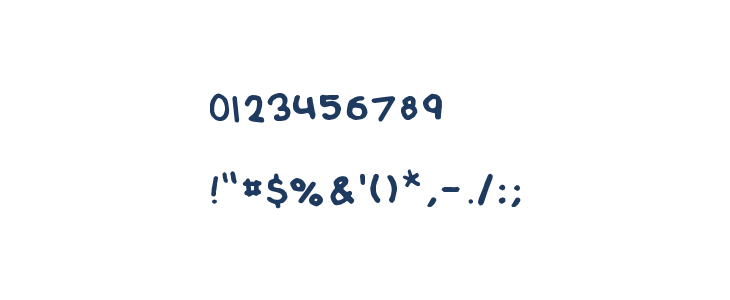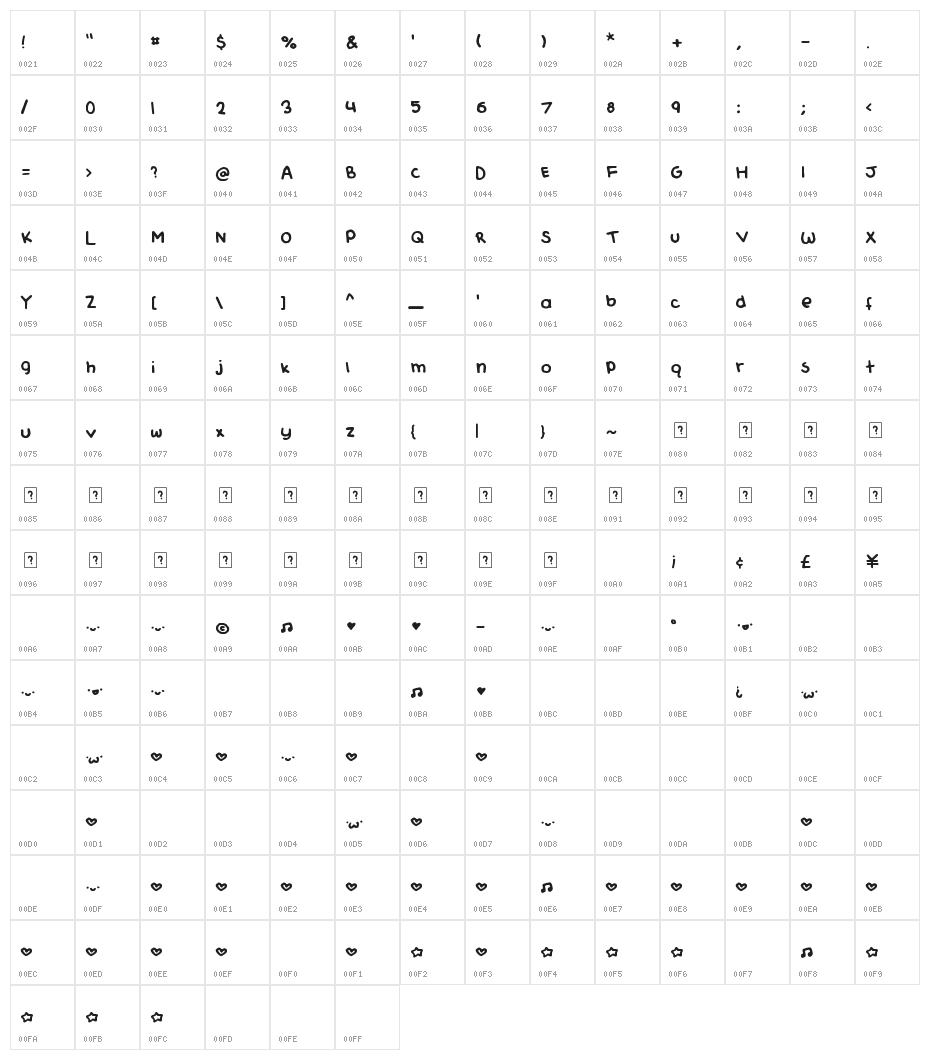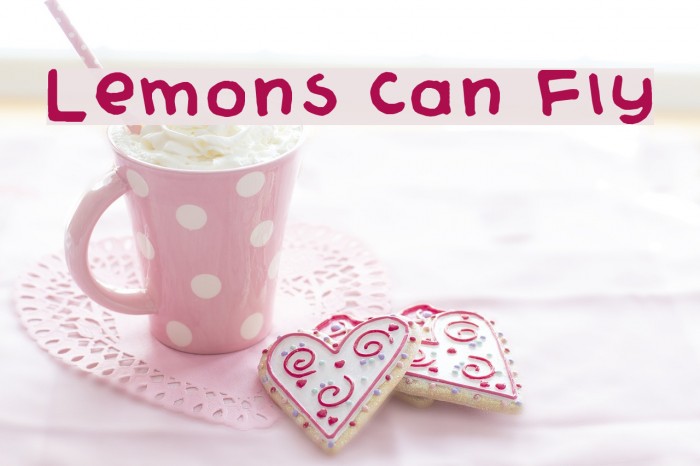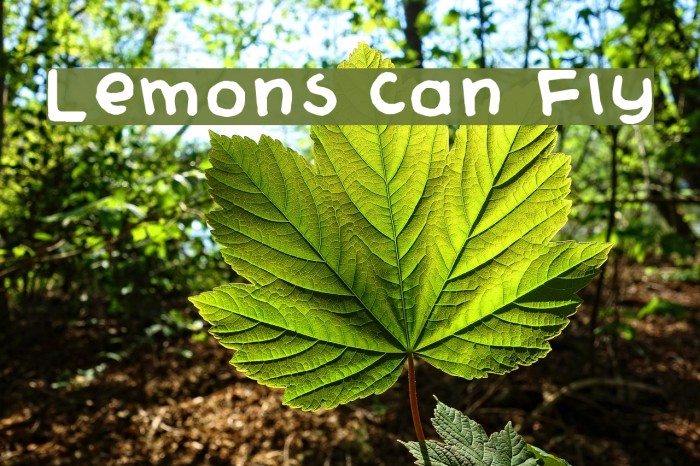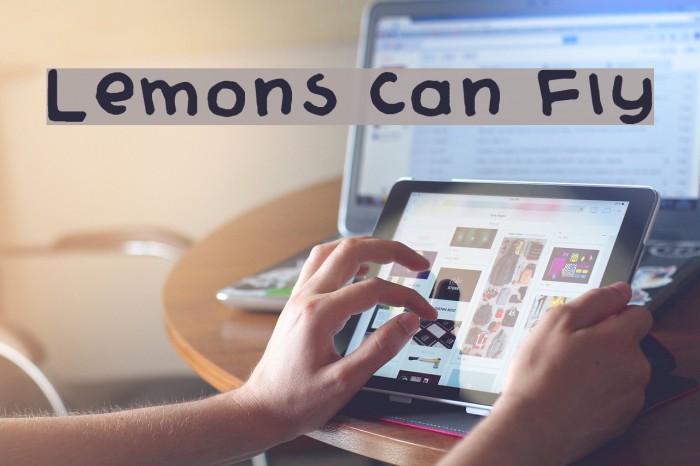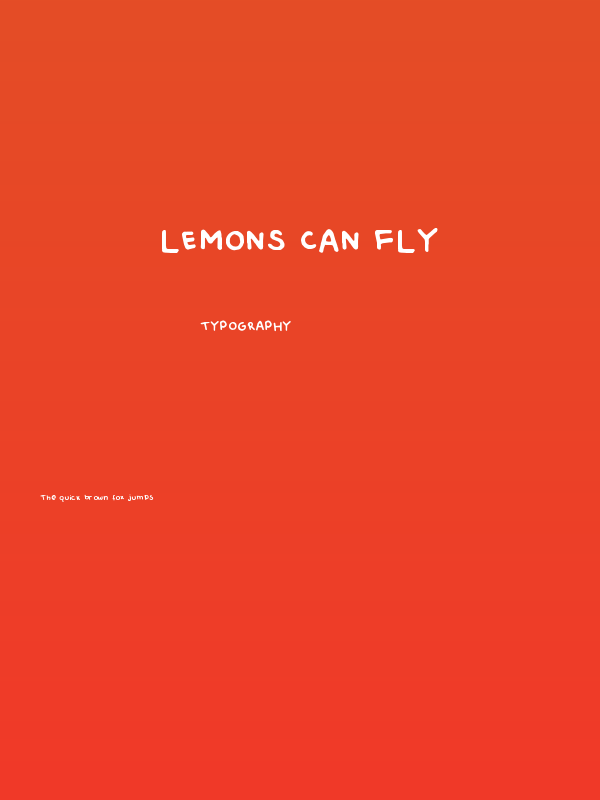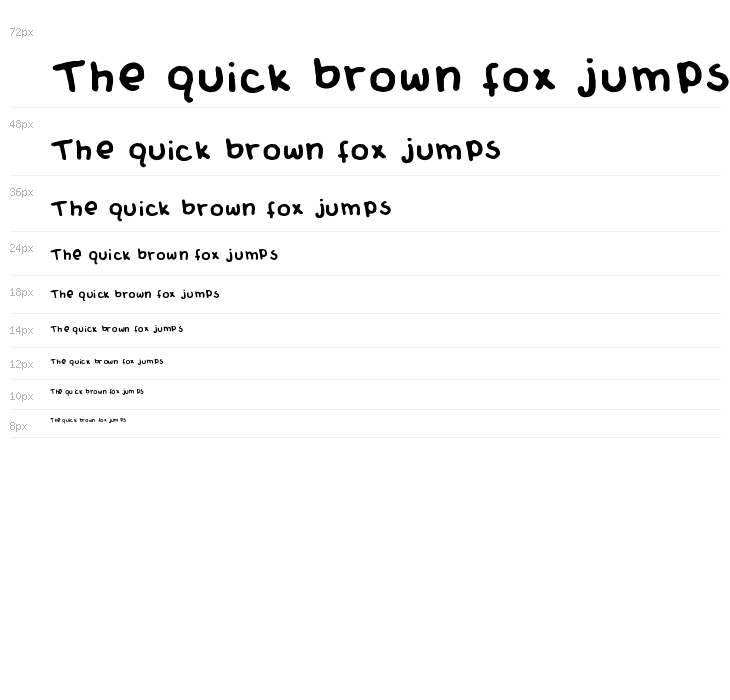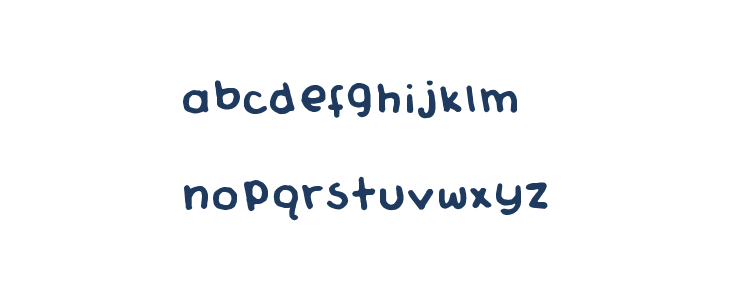
Lemons Can Fly Font
Lemons Can Fly Description
This playful and whimsical font features a hand-drawn aesthetic with rounded, slightly irregular letterforms that convey a sense of fun and creativity. The characters are bold and have a consistent stroke width, giving them a uniform appearance despite their quirky design. The font includes both uppercase and lowercase letters, numerals, and a variety of special characters, making it versatile for different uses. Its informal style is reminiscent of doodles or children's handwriting, adding a personal touch to any project.
| Proposed Projects | Ideal for children's books, playful branding, greeting cards, and creative posters. |